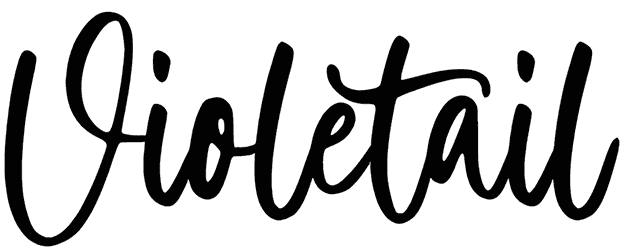
Violetail Font
The human feeling and intimacy hidden in script fonts are what always encourage you to use them. This is exactly the inner charm of Violetail that convinces you to add it to your collection, even though you have hundreds of handwritten fonts in your collection.
This cursive font is like the unreadable handwriting of a human being and is very successful in conveying pure human emotions. As a result, it is an ideal choice for wedding cards, romantic greetings, and social posters.